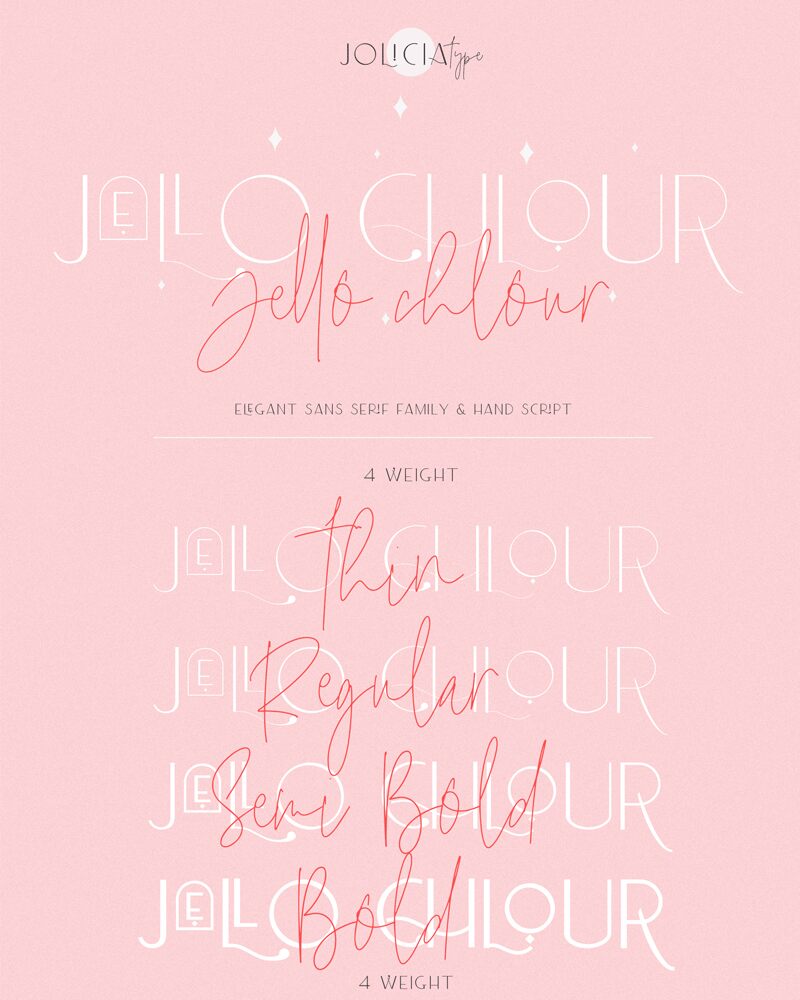
Jello Chlour Script font is a thin handwritten font designed by Jolicia Type Foundry.
Say hello for our first debut "Jello Chlour " Family
combine stylish elegent sans serif and beauty script
with Modern Elegant Style this is perfect for branding, logos, invitation, masterheads and more.
Jello Chlour Script